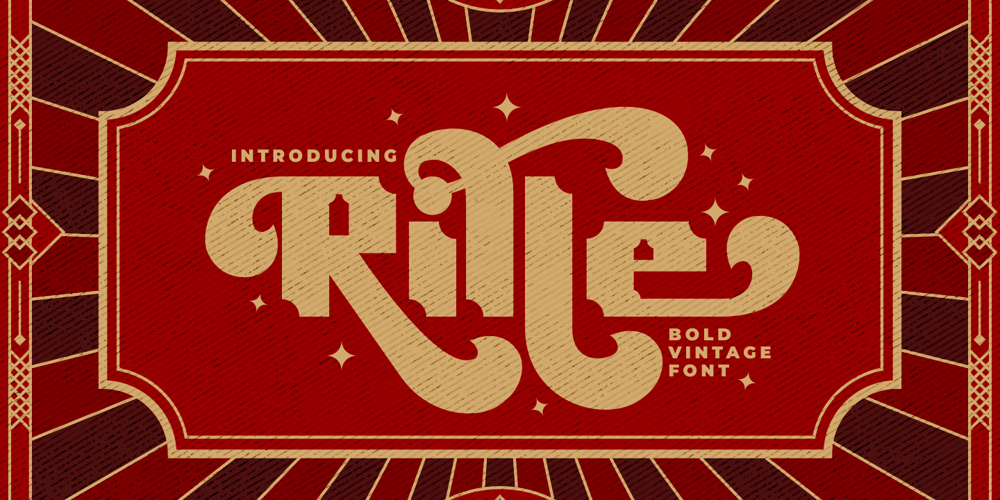
Rille Font Family was designed by Putra Novembria Candra Kusuma and published by Putracetol. Rille contains 2 styles and family package options. RILLE is a family Sans Serif font designed with carefully handcrafted, this font is a tall and skinny font perfect for your home decor and craft designsRILLE inspired by vintage poster design, RILLE is a vintage font that is perfect for story books, illustrations, comic books, t-shirts, posters, greeting cards, logos, branding, stickers, svg, crafting and all for display purposes.The alternative characters were divided into several Open Type features such as Swash, Stylistic Sets, Stylistic Alternates, Contextual Alternates, and Ligature. The Open Type features can be accessed by using Open Type savvy programs such as Adobe Illustrator, Adobe InDesign, Adobe Photoshop Corel Draw X version, And Microsoft Word. This font is also support multi language.